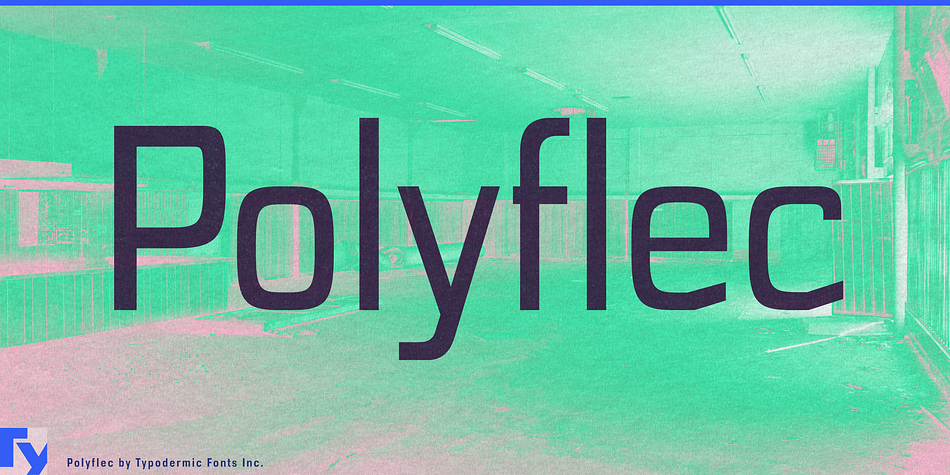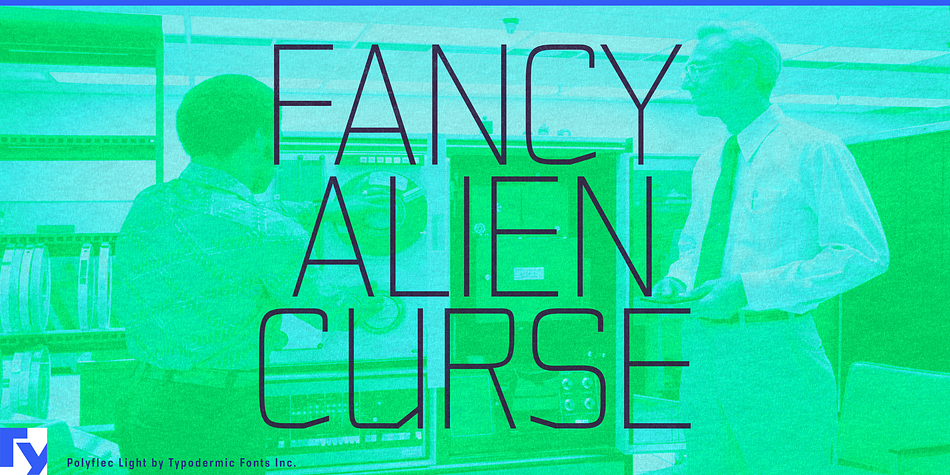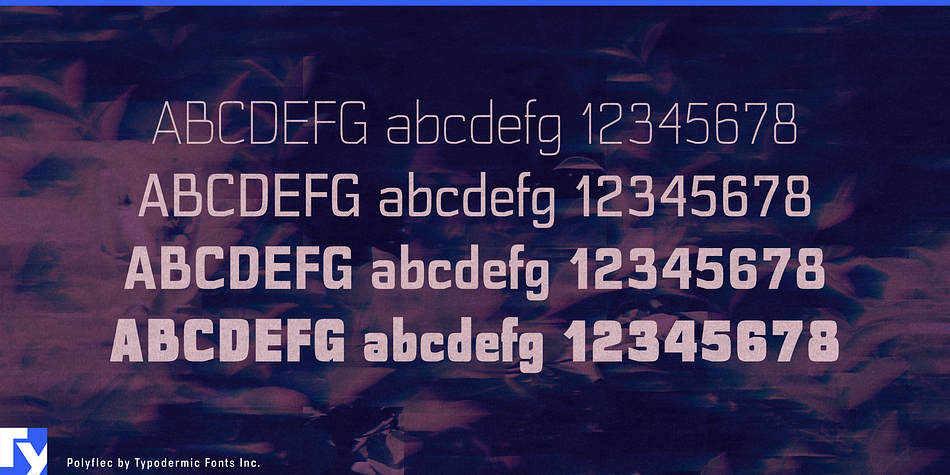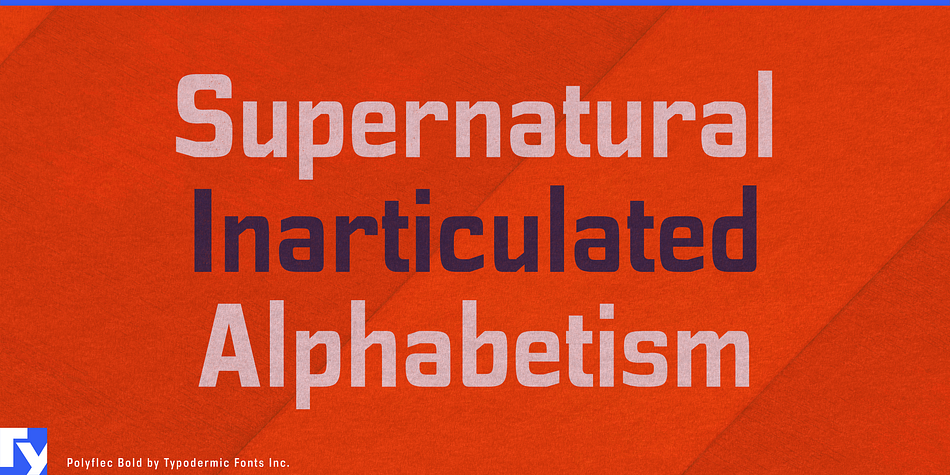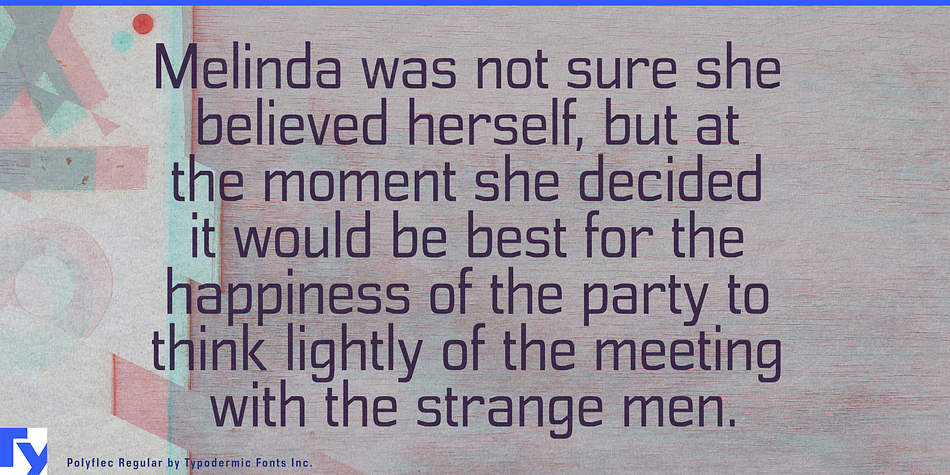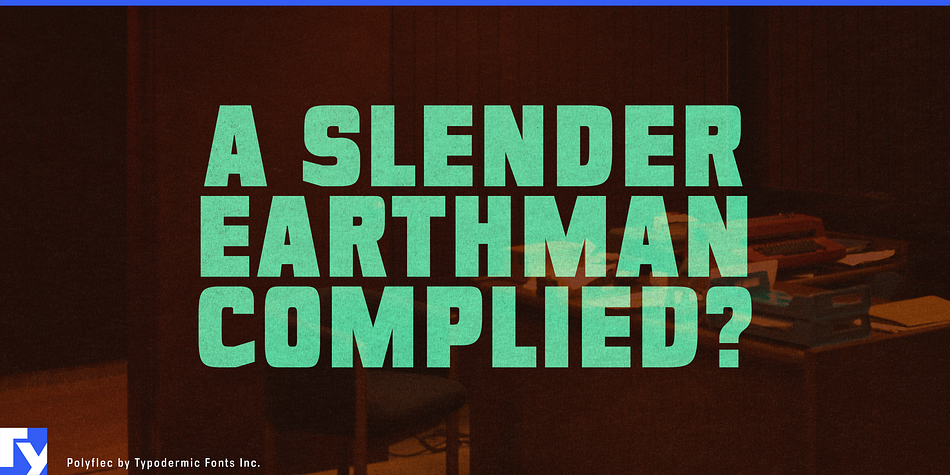
Polyflec is a sans serif font family. This typeface has four styles and was published by Typodermic Fonts Inc.
Polyflec is a family of four high-tech square-sans weights inspired by contemporary industrial design.